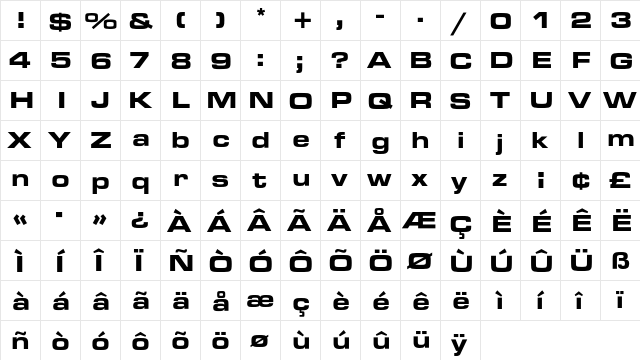
MicrogrammaEF BoldExtend
Design Context for MicrogrammaEF Typeface
MicrogrammaEF takes a measured approach to typography — its balanced proportions and neutral character make it a reliable workhorse for both digital and print work. The heavy weight commands attention and anchors typographic hierarchies.